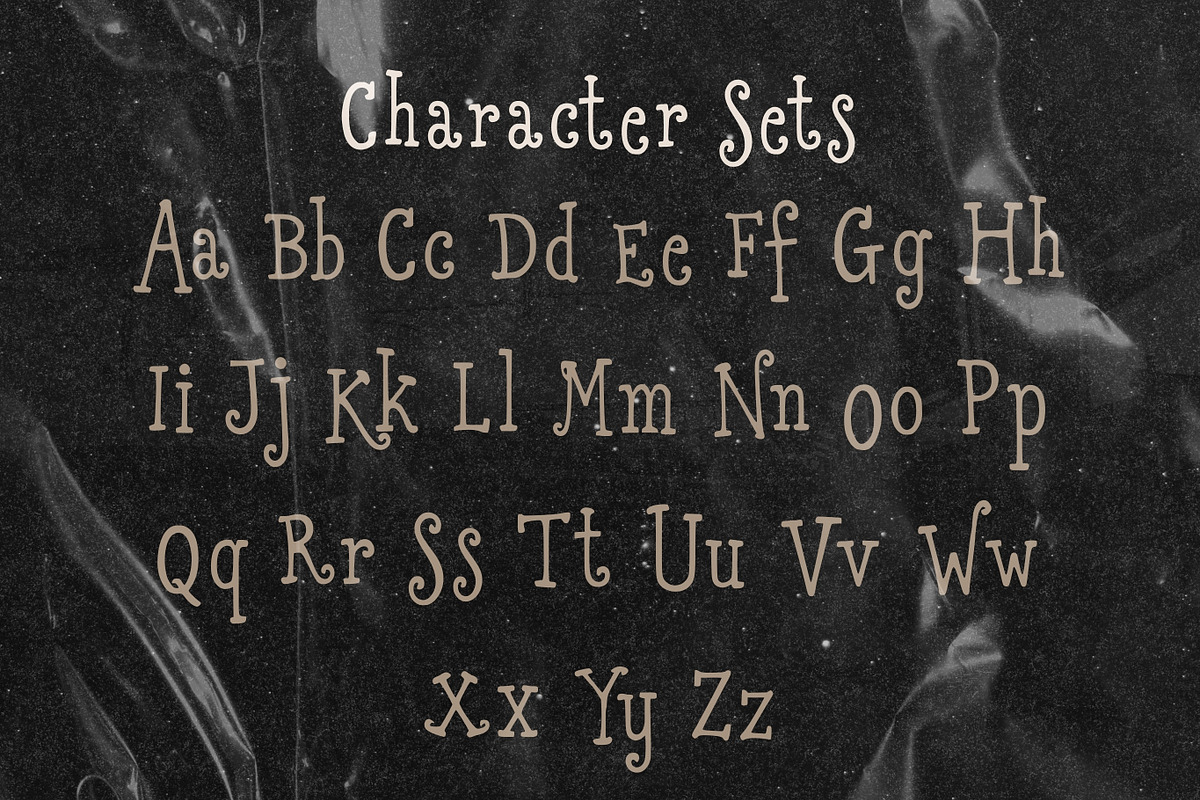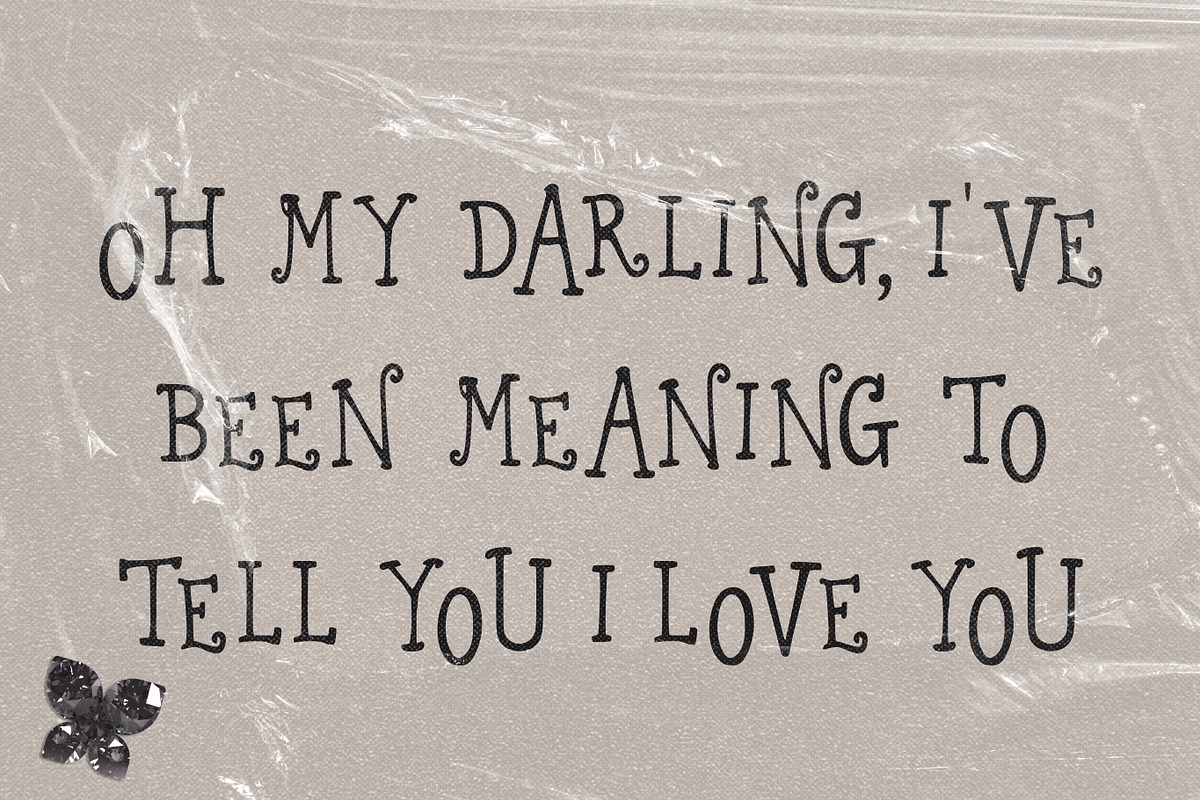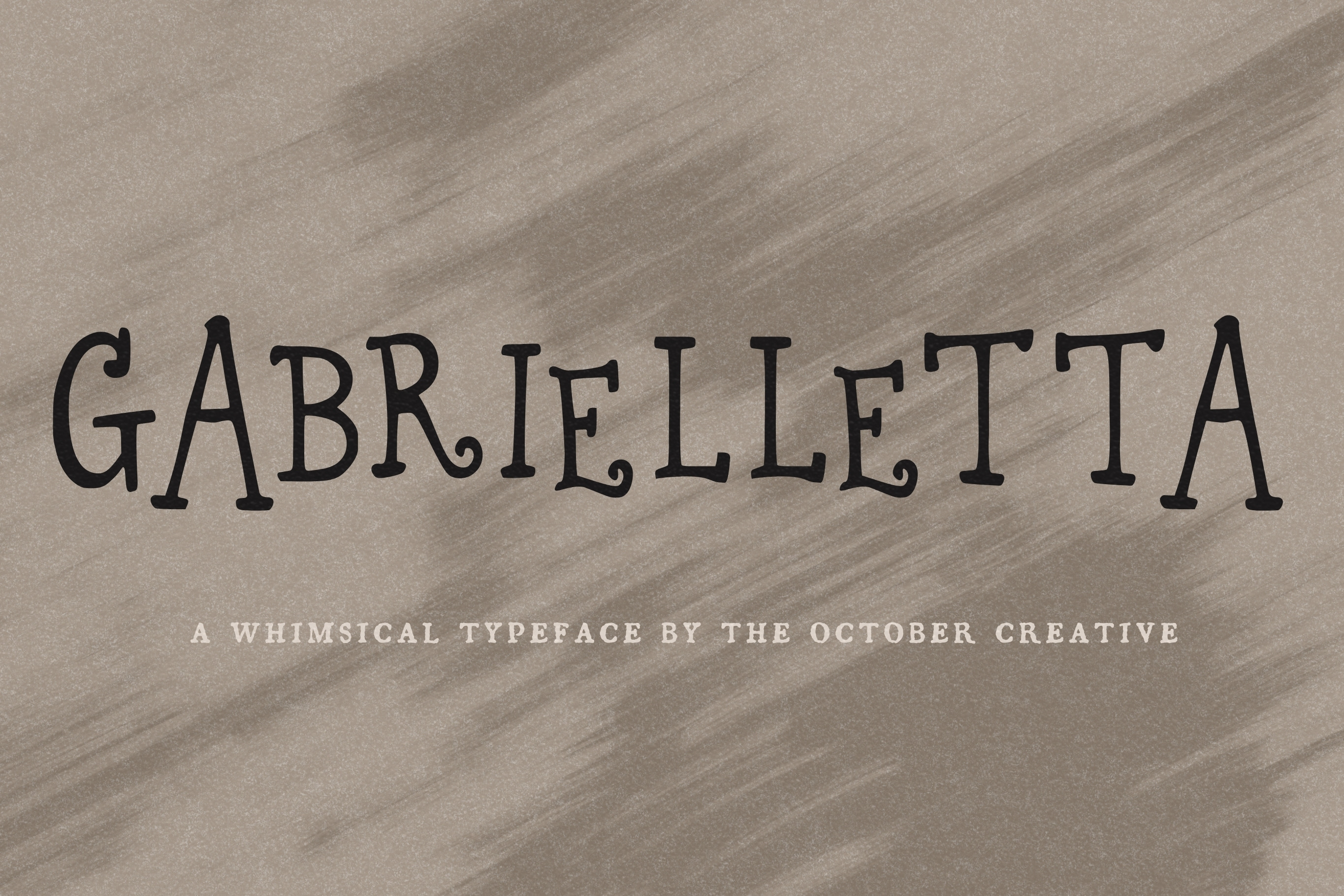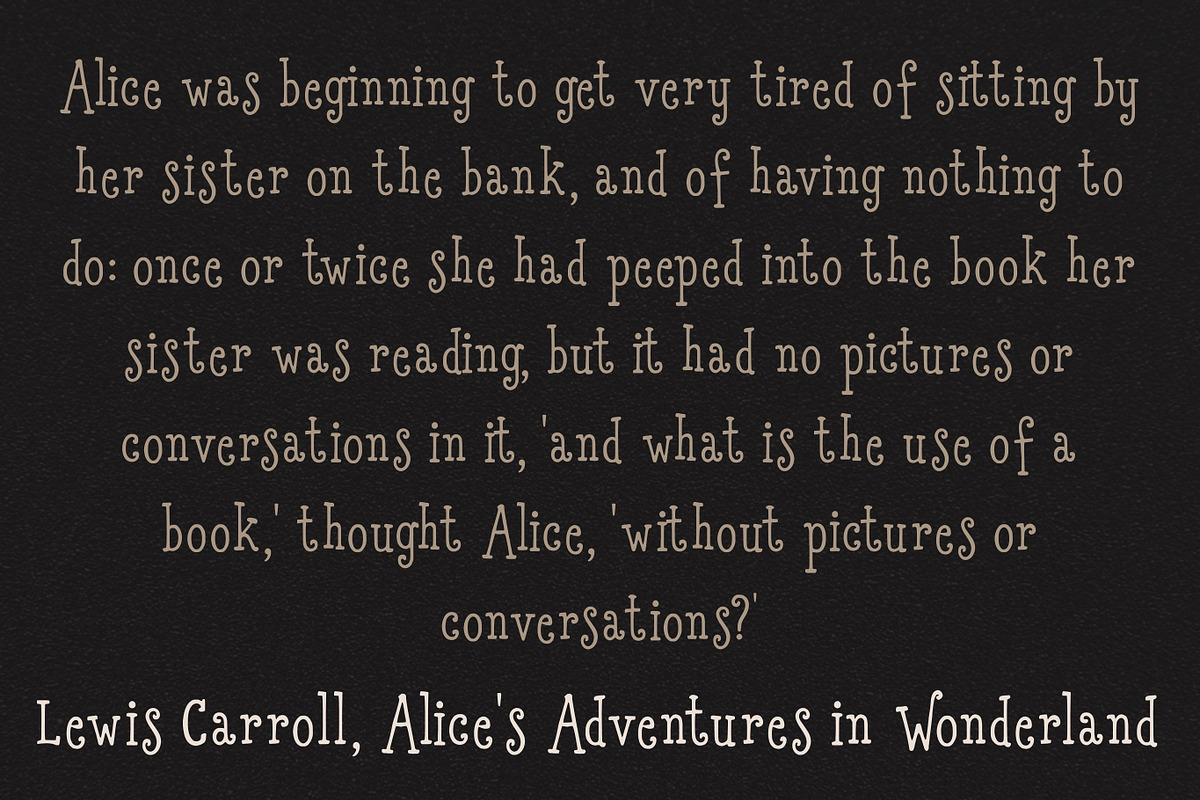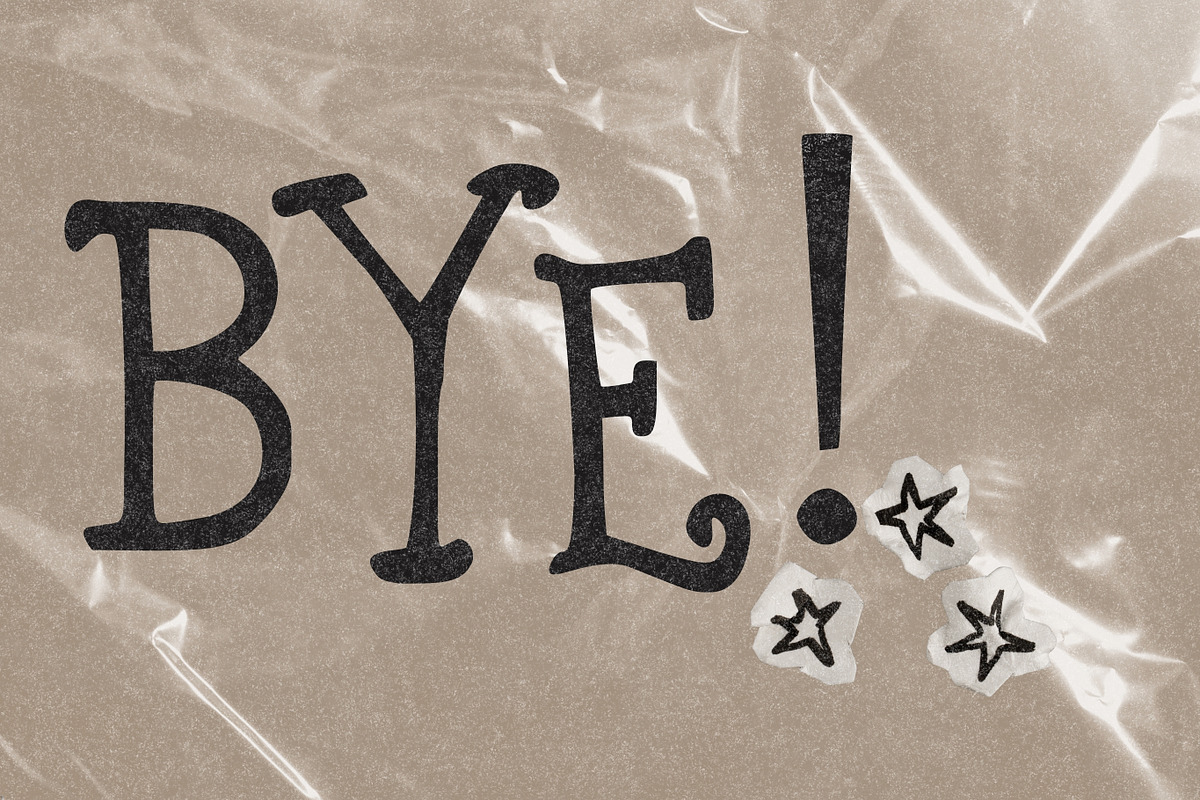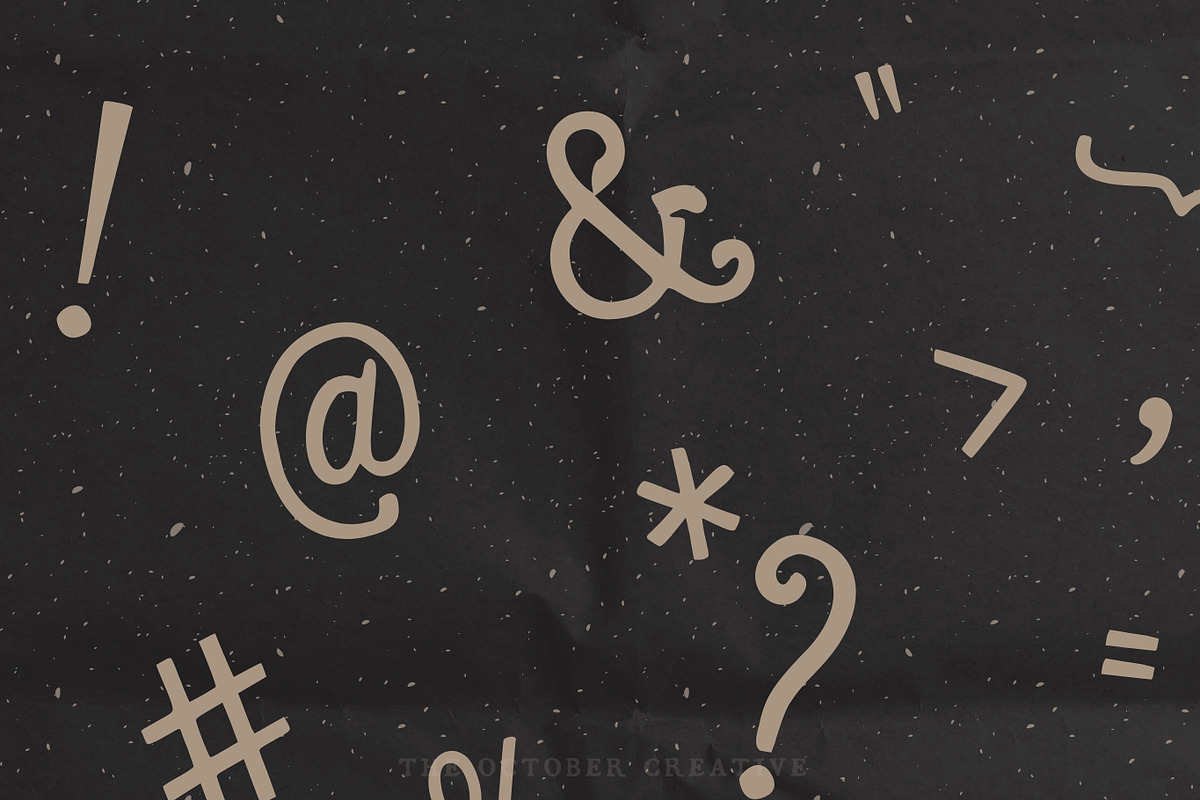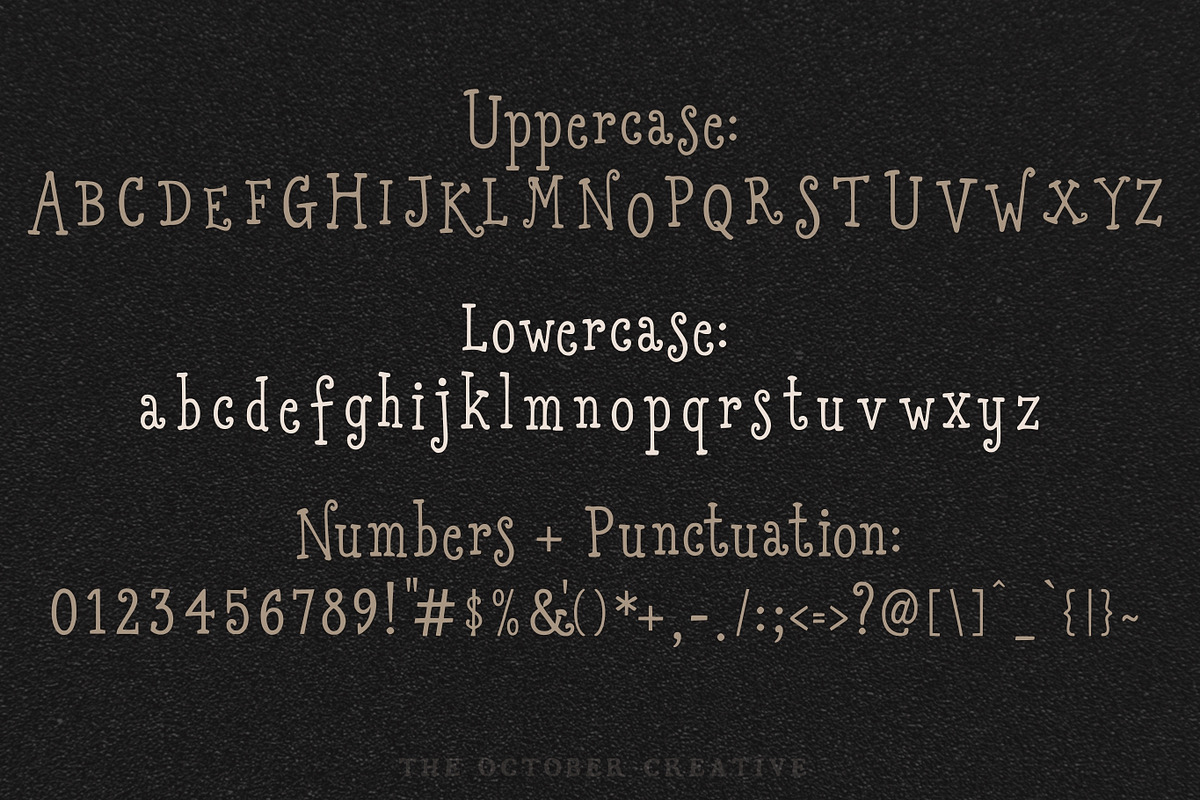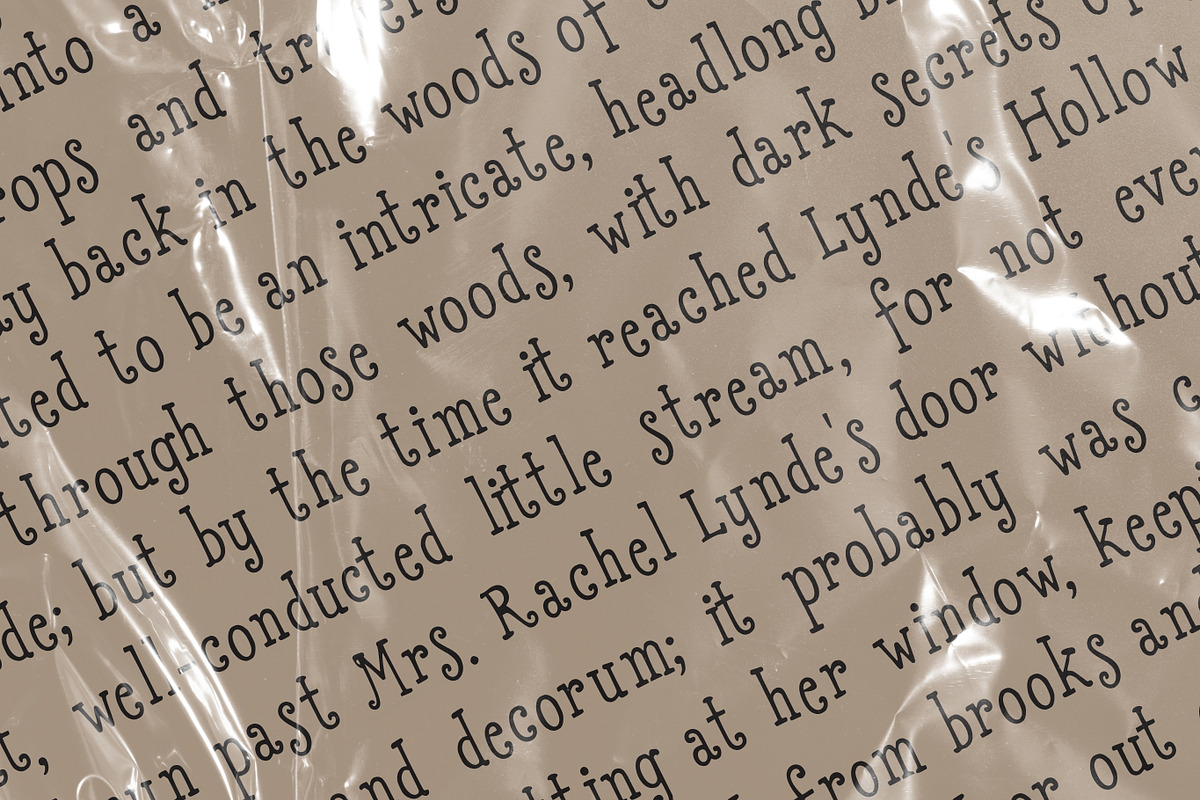
Gabrielletta Wobbly Serif Font
Gabrielletta is a readable, wobbly serif font with upright letters and slightly uneven heights. It works as a friendly text font for cafe menus, labels, children's book text, and classroom printables.
CHARACTER SET
Uppercase A to Z, lowercase a to z, numerals 0 to 9, and every standard keyboard punctuation mark and symbol: ! " # $ % & ' ( ) * + , - . / : ; < = > ? @ [ \ ] ^ _ ` { | } \~
Curly quotes and apostrophes (‘ ’ “ ” ‚ „), en and em dashes, an ellipsis, and a bullet.
Accented letters: À Á Â Ã Ä Å Ç È É Ê Ë Ì Í Î Ï Ñ Ò Ó Ô Õ Ö Ù Ú Û Ü and their lowercase forms.
LANGUAGES SUPPORTED
English, plus the accented vowels, Ñ, and Ç used in names and everyday words in Spanish, French, Italian, Portuguese, German, and Dutch. Not included: ß, Æ, Ø, Œ, and the upside-down ¿ and ¡.
SPECIAL CHARACTERS
There are no hidden alternates or ligatures, so every character types straight from the keyboard. Accented letters type with your keyboard's usual accent shortcuts (on a Mac, hold down the letter), or you can insert them from the Glyphs panel in your design software, the Character Viewer on a Mac, or Character Map on Windows.